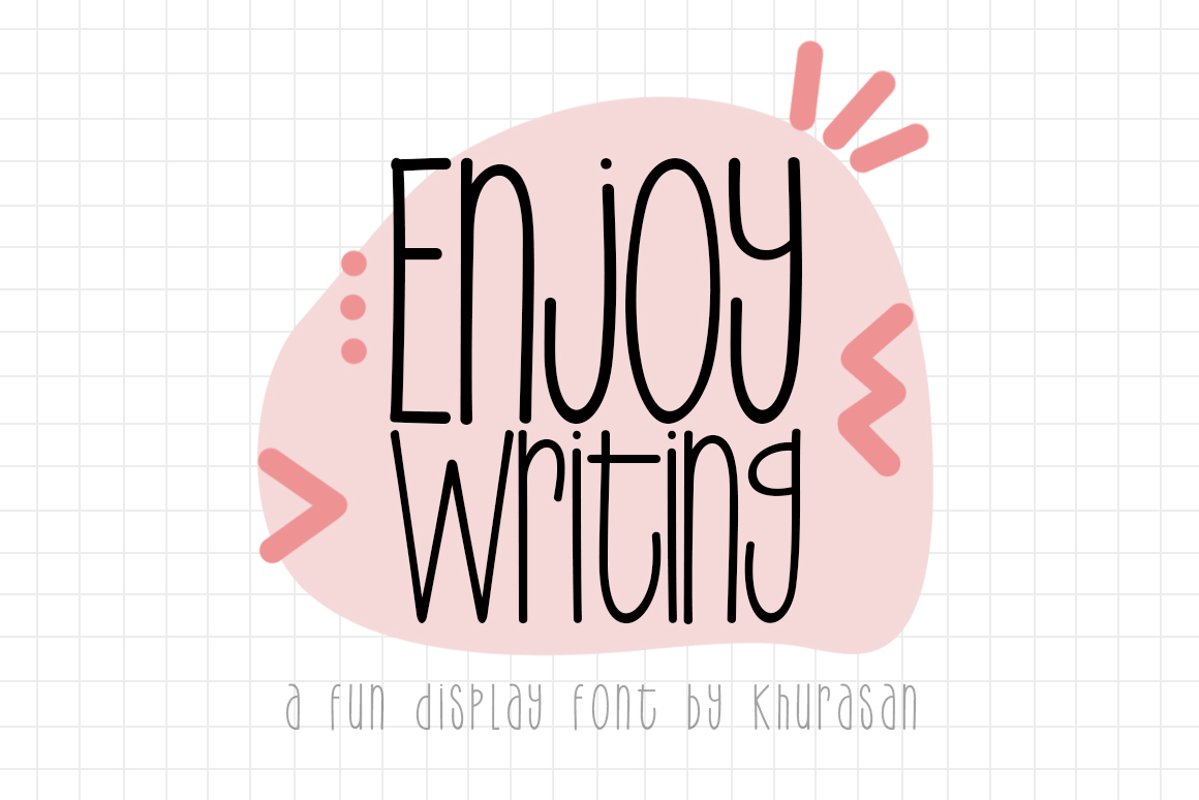
Enjoy Writing font a fun display typeface with cheerful theme for your fun project. Enjoy Writing font support multilanguage. Enjoy Writing font suitable for logo, branding, greeting card, poster and any design that you create.